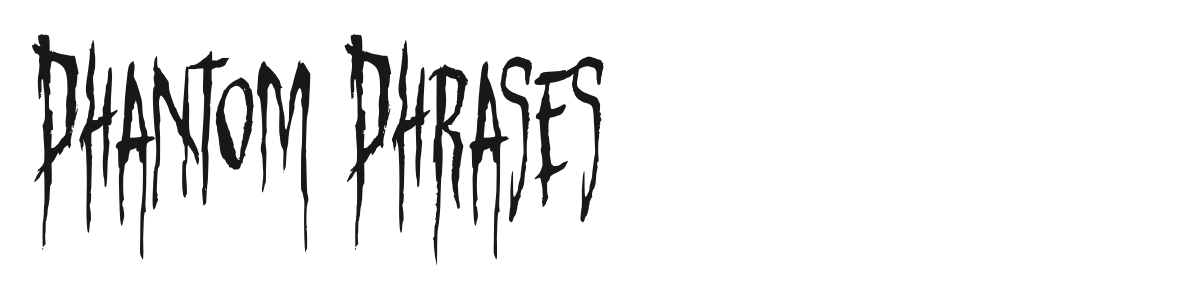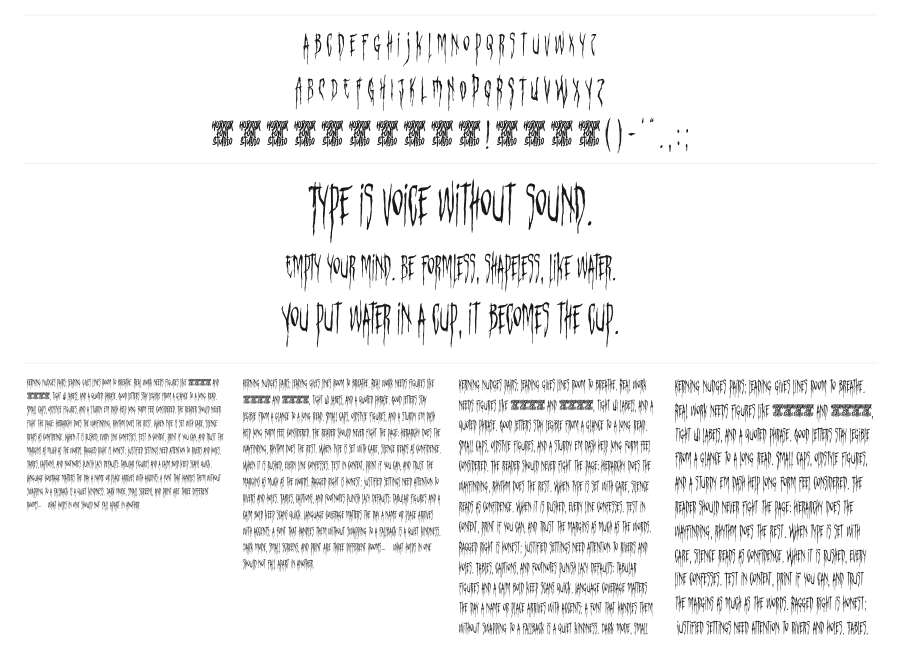
Phantom Phrases
Phantom Phrases is a condensed horror display font built from aggressively eroded, splintered strokes that look like they've been dragged through grime or torn from a wall. The tall narrow proportions push the dark energy upward while the textural chaos keeps every character feeling unstable and threatening. It's the kind of font that does exactly one thing, and does it with conviction.